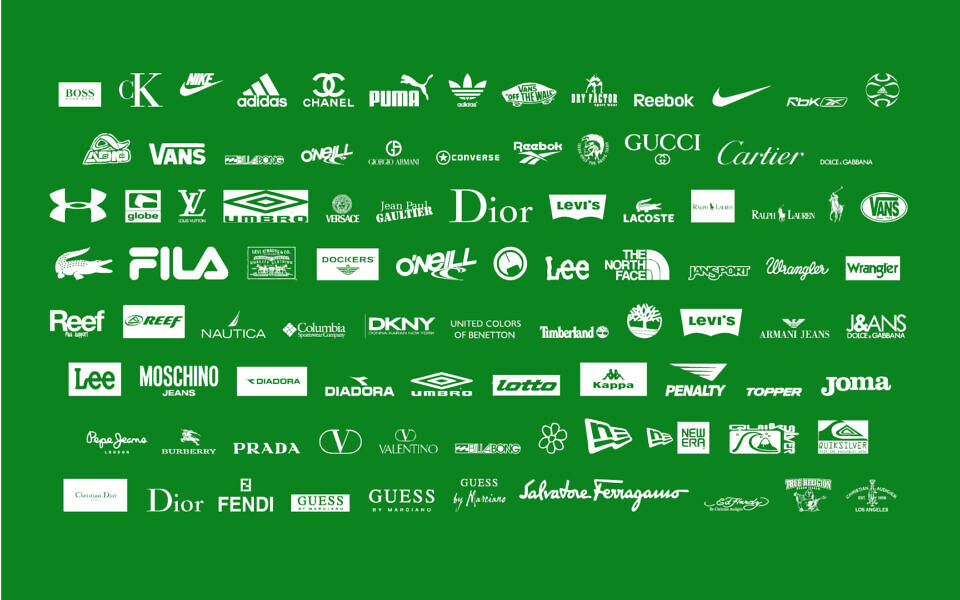
Clothing Logos TFB Font
The “Clothing Logos TFB” is a versatile dingbat collection featuring an extensive library of popular clothing brand logos.
Perfect for designers and hobbyists, it includes over 100 iconic clothing and sportswear brand logos, such as Nike, Adidas, Puma, Reebok, Lacoste, and Gucci, making it easy to incorporate recognizable branding into digital mockups, creative projects, and graphic designs. This dingbat font is a practical, time-saving resource for anyone looking to reference or use well-known fashion brand logos in their work.